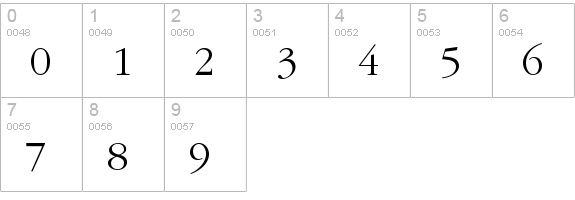
GaramondEF-Light Font Details
GaramondEF-Light is a refined, elegant variant in the GaramondEF typeface family \xE2\x80\x94 well suited to elegant body text, refined sub-headings, and luxury branding.
GaramondEF-Light is a timeless and elegant font that exudes sophistication and grace. With its delicate strokes and subtle curves, it effortlessly captures the essence of classic typography. Its light weight adds an air of refinement, making it perfect for projects that demand a touch of subtlety and finesse. This font's versatility is unparalleled, as it can be used for a wide range of design purposes. Whether you're creating a logo, branding materials, or a beautiful invitation, GaramondEF-Light will enhance your work with its understated beauty. One of the best things about GaramondEF-Light is that it is free. Yes, you read that right - this exceptional font is available for free download at FontsMarket.com. You can now enjoy the sheer beauty and elegance of GaramondEF-Light without any cost or restrictions. By choosing GaramondEF-Light, you are not only embracing a font that has stood the test of time but also accessing it freely and conveniently. FontsMarket.com provides a seamless and user-friendly platform where you can easily download this font and add it to your collection. So why wait? Take advantage of this incredible opportunity to enhance your design projects with the timeless beauty of GaramondEF-Light. Download it for free at FontsMarket.com and let your creativity soar to new heights.